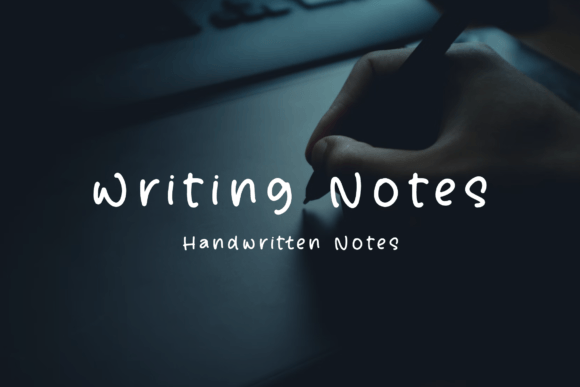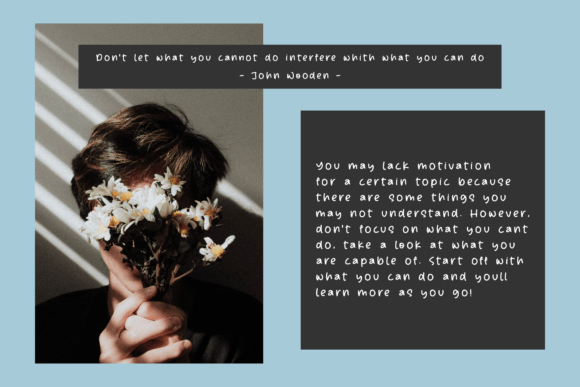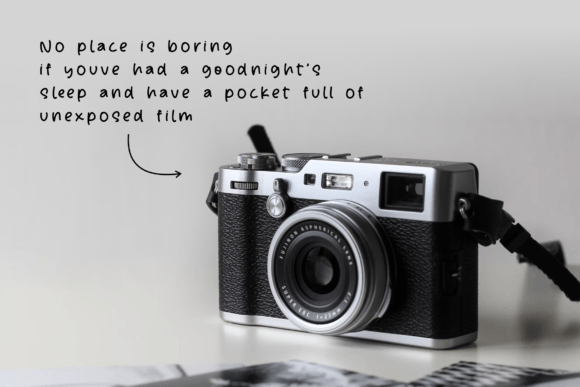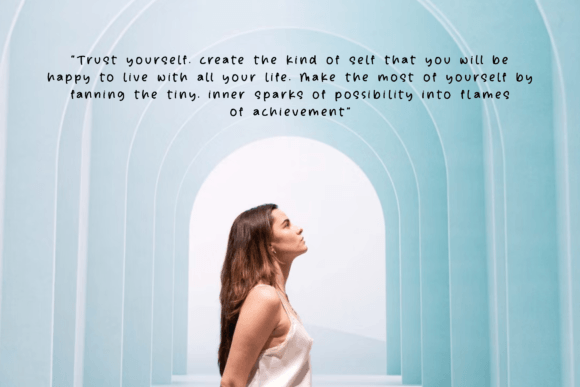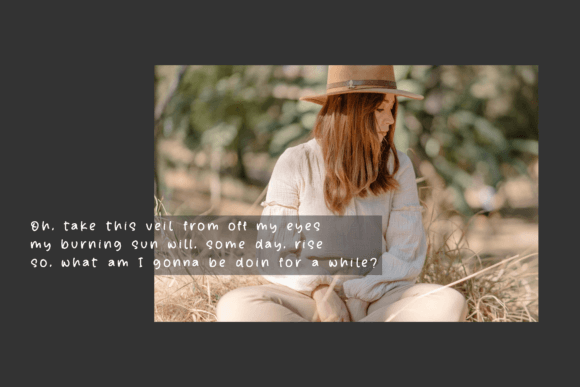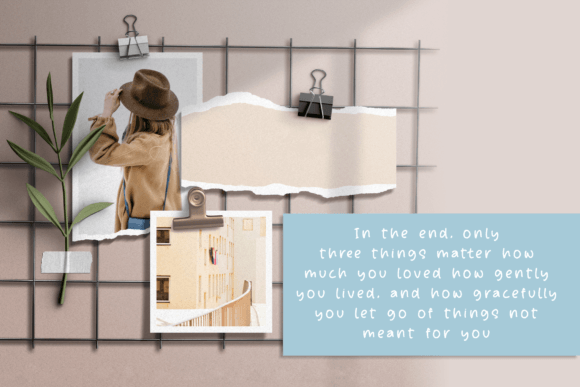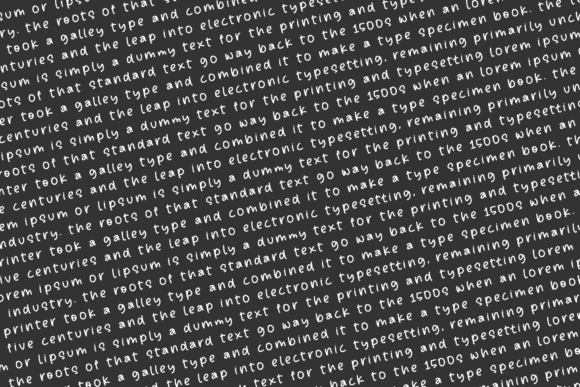
Writing Notes Font
Writing Notes – Handwritten font suitable for any projects such as logos, branding projects, homeware designs, product packaging, mugs, quotes, posters, shopping bags, t-shirts, book covers, name cards, invitation cards, greeting cards, labels, photography, watermark, special events, and all your other lovely projects that need a beautiful script taste.